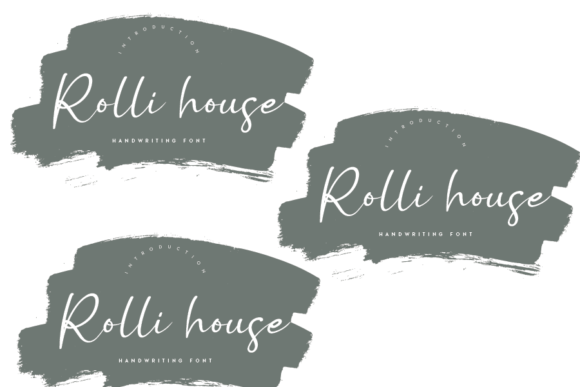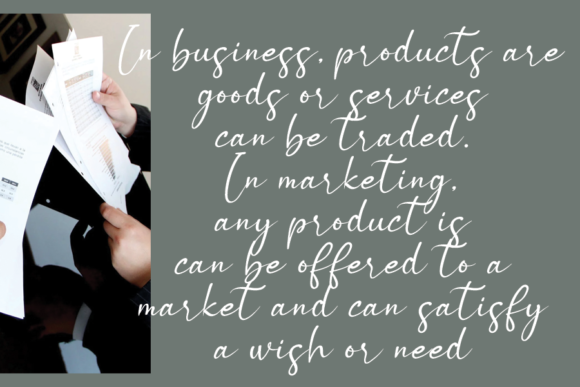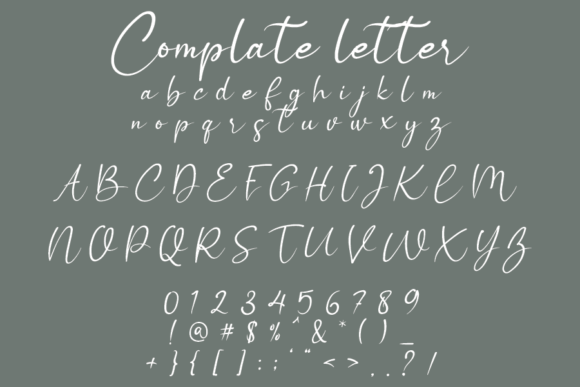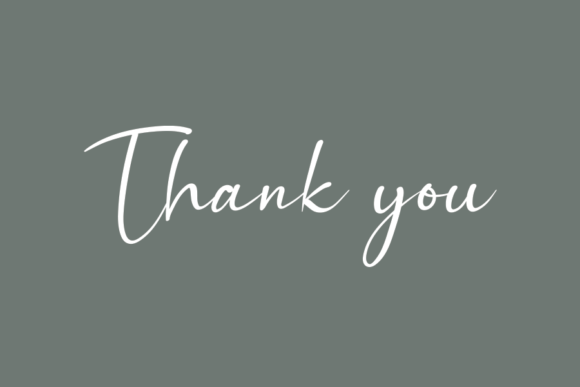
Rolli House Font
Rolli House is a relaxed and flowing handwritten font. It has beautiful and well balanced characters and as a result, it matches a wide pool of designs. Add it to your most creative ideas and notice how it makes them come alive!